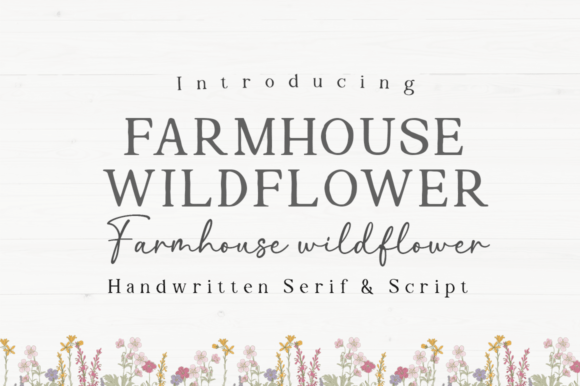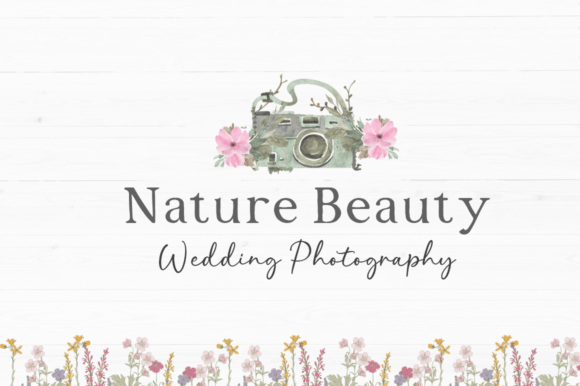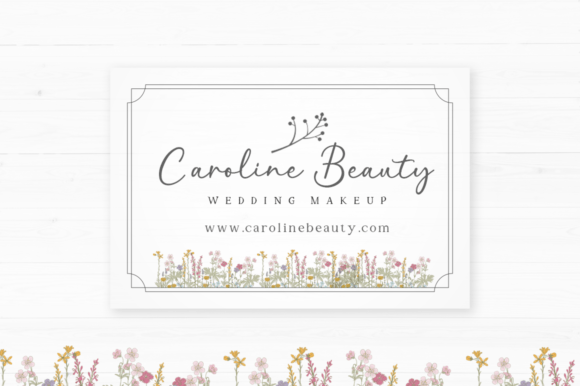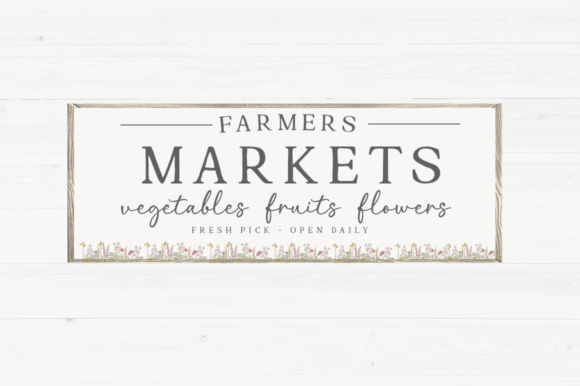
Farmhouse Wildflower Font
About the Farmhouse Wildflower Font
Add a touch of class to your work with the Farmhouse Wildflower Font, a truly exceptional typeface. Farmhouse Wildflower handwritten serif and script fonts, organic imperfect variations, and additional bonus wildflower bundles in eps and svg files ideal for Farmhouse Decor, Quotes, Invitations, Personalized Products, Brand Logos, T-shirts, Cricut, and more!
This font’s organic, imperfect nature makes it ideal for projects requiring a rustic, handcrafted feel. It excels in headlines, short text blocks on invitations or packaging, and logos for brands emphasizing natural, wholesome products or a vintage aesthetic. Avoid using it for large amounts of body text; its irregularities would hinder readability in long paragraphs or UI elements.
Farmhouse Wildflower pairs well with clean sans-serif fonts like Open Sans for a balanced contrast, or with a more geometric sans-serif for a modern twist. A simple serif like Lora could also complement its handcrafted charm, providing a sophisticated yet approachable pairing. For a more playful approach, consider a complementary script font with a less pronounced texture.
The overall personality is friendly, approachable, and slightly whimsical, reflecting a sense of rustic charm and handcrafted authenticity. It projects warmth and approachability, making it perfect for brands related to home décor, food, and events that aim for a relaxed and inviting atmosphere.